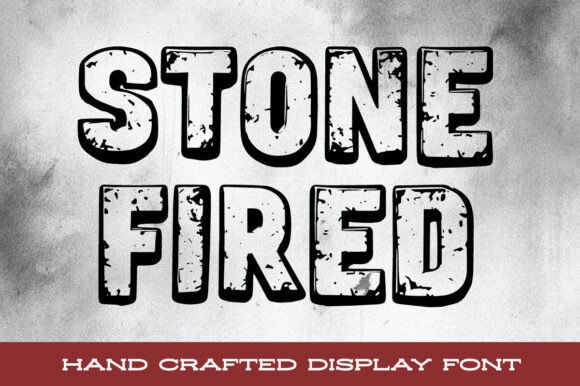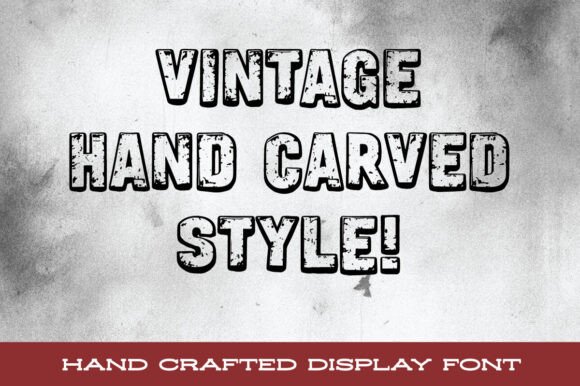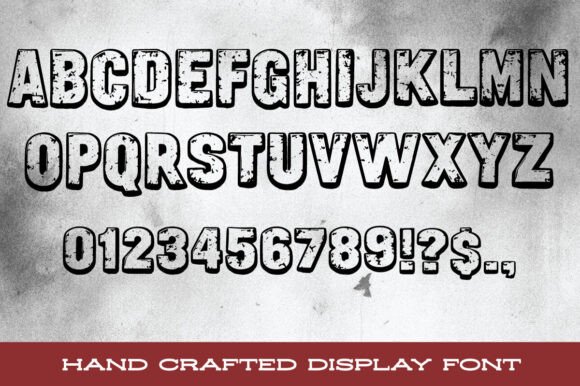
Stone Fired Font: A Bold Vintage Display Font for Logos & Posters
About the Stone Fired Font
Presenting Stone Fired Font, a unique and stylish typeface that will make your work stand out. Stone Fired is a bold, distressed, hand-crafted font that captures the rugged beauty of vintage craftsmanship. With its outlined design and 3D appearance, this font stands out with a grungey, weathered texture that evokes the feeling of stone carved by hand. The intricate details give it a raw, industrial vibe, making it perfect for designs that need a touch of strength and history. Whether you’re creating logos, posters, or other vintage-inspired projects, Stone Fired brings a timeless, bold edge to your work.
Stone Fired Font Usage Examples
Stone Fired Font Example